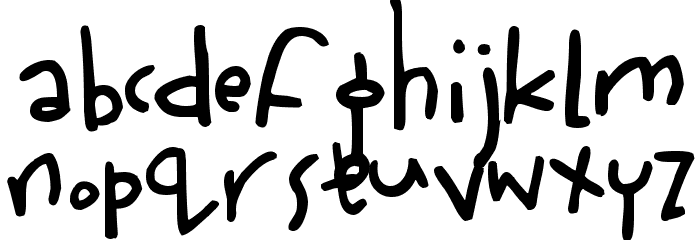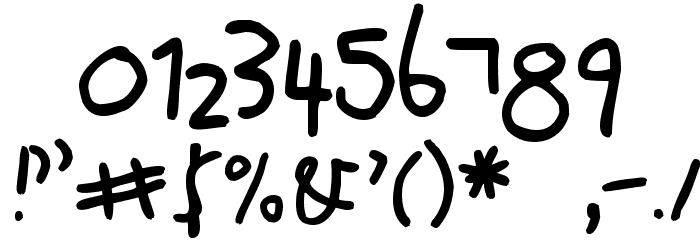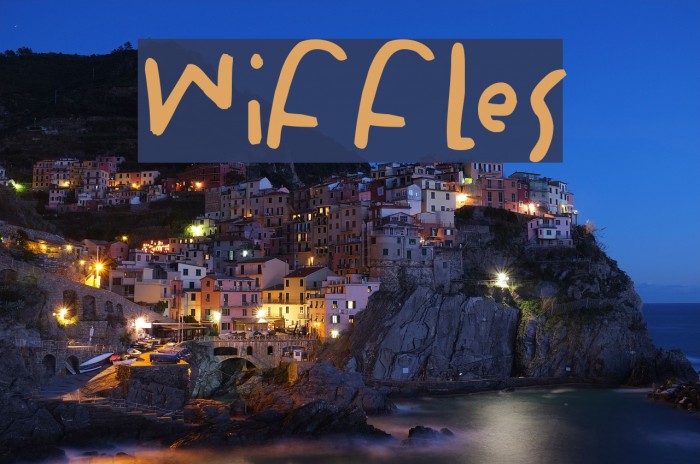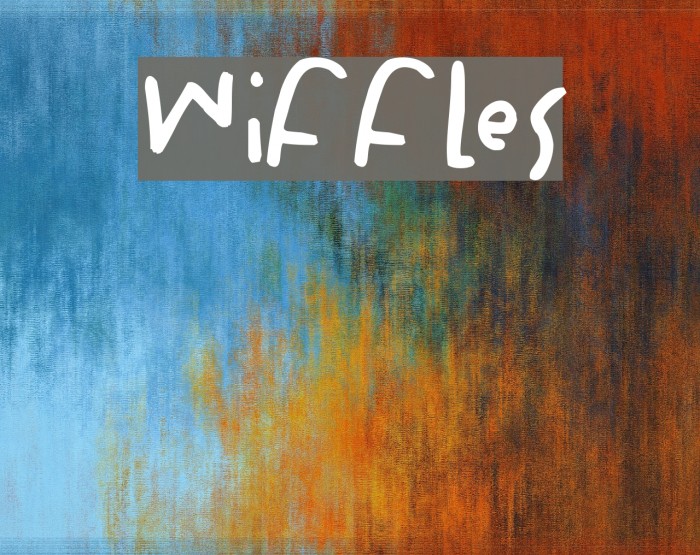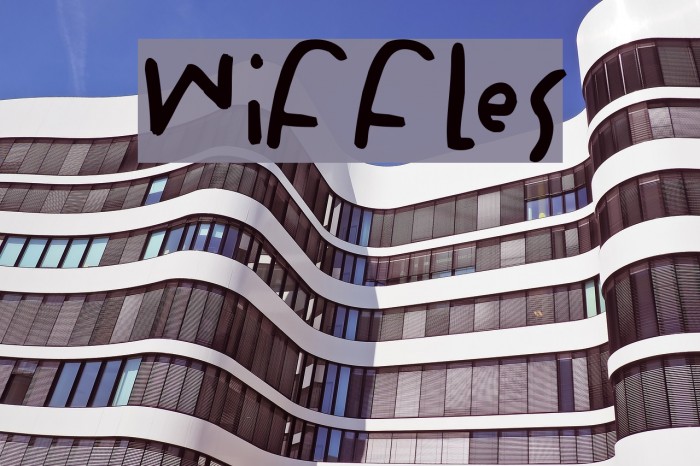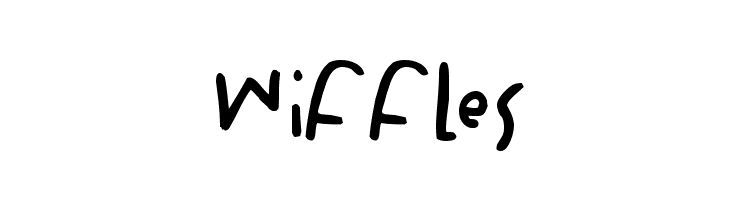
Wiffles Font
This playful and whimsical font features a hand-drawn style with irregular strokes and a casual appearance. The letters are slightly uneven, giving it a charming and informal look. The uppercase and lowercase characters maintain a consistent style, with rounded edges and a friendly feel. Numbers and special characters follow the same playful design, making it suitable for creative and fun projects. The font's unique personality makes it stand out, perfect for designs that require a touch of individuality and creativity.
A playful, hand-drawn font with a whimsical and casual style.
- Proposed Projects: Ideal for children's books, greeting cards, playful branding, and creative posters.